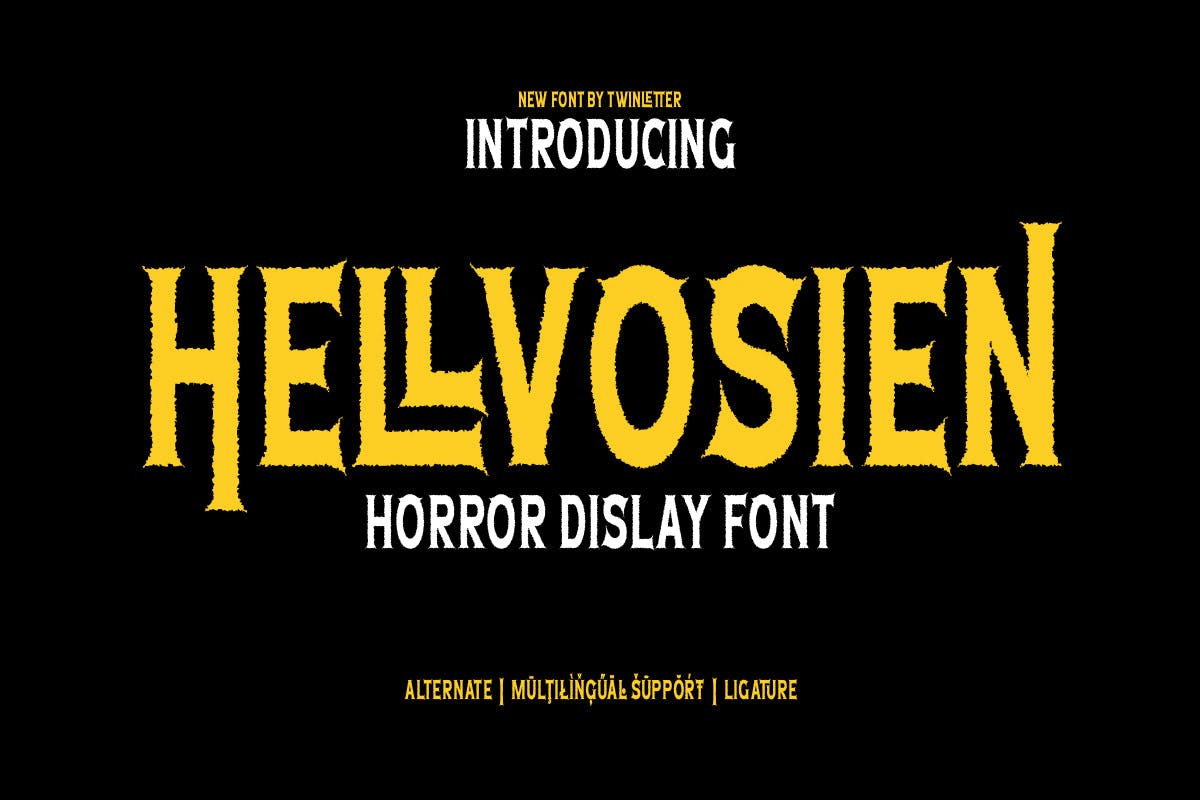
Hellvosien - Horror Display Font
This demonic font is perfect for horror movie titles, hellish Halloween displays, satanic themed events, dark gothic branding, demonic horror posters, infernal seasonal decorations, sinister movie credits, evil Halloween parties, diabolical horror marketing, and malevolent supernatural messaging materials.
Hellvosien - Horror Display Font is exciting because it embodies the terrifying essence of pure evil and supernatural malevolence through its diabolically crafted letterforms that seem to emerge from the depths of hell itself with an aura of ancient darkness and demonic power. The font features menacingly sharp characters with hellish proportions and infernal details that evoke the bone-chilling terror of encountering true evil, incorporating razor-like edges and demonic flourishes that create typography as frightening and otherworldly as the screams echoing from the abyss. Each letter showcases the calculated malevolence and supernatural dread that separates genuine horror from mere theatrics, with hellish curves and diabolical accents that transform ordinary text into instruments of pure terror that seem to pulse with malevolent energy. The design perfectly captures the primal fear of supernatural evil that has haunted humanity since the dawn of consciousness, creating typography that feels genuinely cursed and unnaturally powerful.
The Hellvosien - Horror Display Font family includes infernal style variations: Regular, Bold, Light, Demonic, and Cursed versions. The collection features special hellish elements including flame accents, demonic horns, infernal flourishes, and malevolent ornaments. Additional components include hellish borders, demonic frames, infernal decorations, and cursed ornamental designs that enhance the font's horror display appeal and create cohesive supernatural evil themes.
The typeface includes comprehensive character support with demonic styling that maintains excellent readability while conveying the supernatural malevolence and hellish atmosphere of genuine supernatural horror. The font's infernal design ensures terrifying results across both professional horror productions and extreme Halloween celebrations.
Perfect for horror movies, extreme haunted attractions, demonic Halloween themes, and supernatural terror marketing, this font delivers genuinely hellish visual impact that communicates pure evil, supernatural malevolence, and the bone-chilling terror that makes encounters with true darkness so profoundly frightening and unforgettably horrifying.